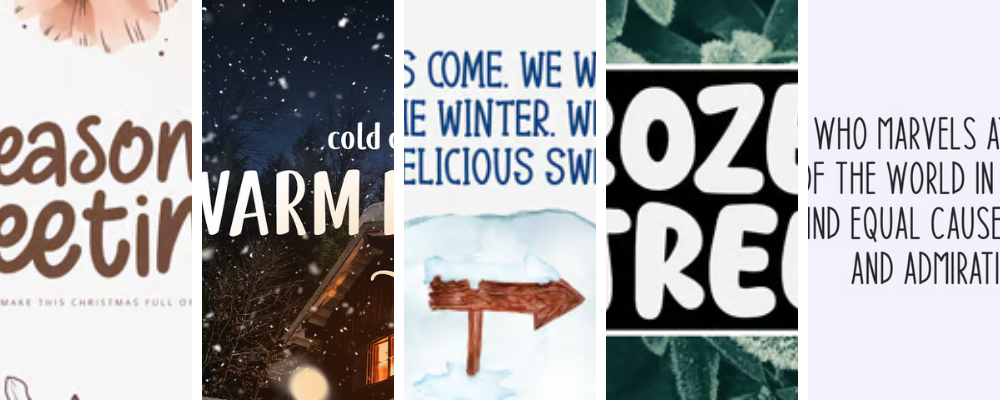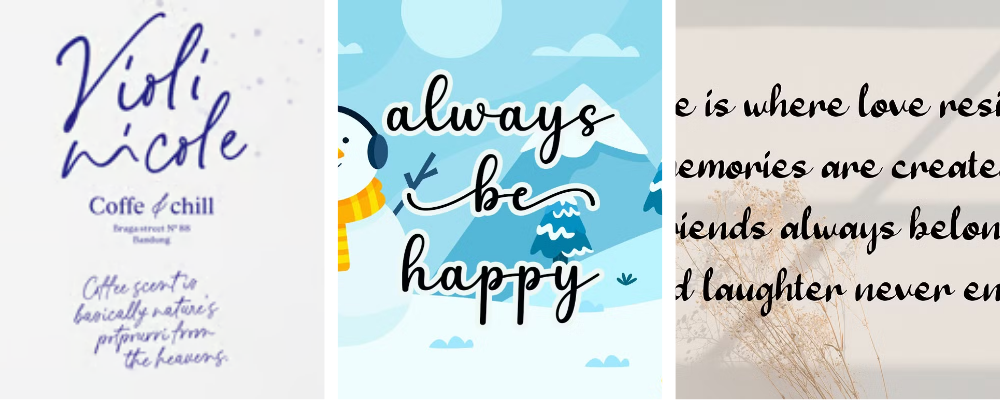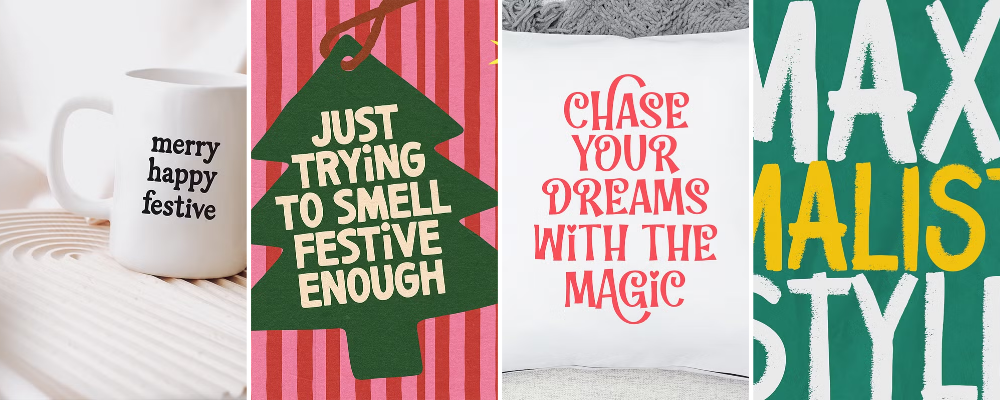
12 Winter Fonts to Inspire Your Branding
The weather outside might be frightful, but there’s still a lot to love about winter. From the holidays to the sparkling lights, there’s a unique feeling that you only get this time of year. I’ve put together a list of winter fonts that capture the spirit of the season, from looping scripts to playful handwritten designs. You’re sure to find something for your winter products, social posts, or even your year-round branding.
Handmade Holidays
Handwritten winter fonts
Everyone can appreciate a handmade gift. But what about a handwritten font? These holiday-esque fonts each have their own unique style and pizazz that tells you it was made by hand.
Winter Memories – a bubbly winter font that’s perfect for a Christmas movie title
Snowhut* – a handwritten font that feels organic, like a fresh cut tree
Winter Animal – this handwritten font feels like vintage Christmas, tinsel and all
Winter Insight* – an easy-to-read, skinny font that could be used in your holiday products
Frozen Tree – this thick, rounded font has a perfectly imperfect look
The Naughty or Nice List
Scripted fonts for winter
You’d better watch out, or you might find your name scrawled in one of these scripts on Santa’s list. Let’s just hope it’s the nice one. 😉
Montpier – a handwritten script fit for a letter that reunites two long-lost lovers in a Romcom
Winter Days* – a loopy scripted winter font perfect for your holiday cards
Rush Berry* – it’s like calligraphy, but without all the work or hours of practice
‘Tis the Season
Fun winter fonts
Spiced Chestnut* – a girlie serif perfect for a holiday sweater or graphic tee
Evergreen* – this chalk display font looks like it might be used for a winter concert series
Twinkle Holiday* – find this winter font on the cover of a Christmas romance novel (it even has a heart over the “I”)
Peppermint Porch* – a cute, fun font with unique characters, like a Christmas tree “A” and an “I” with a star on top